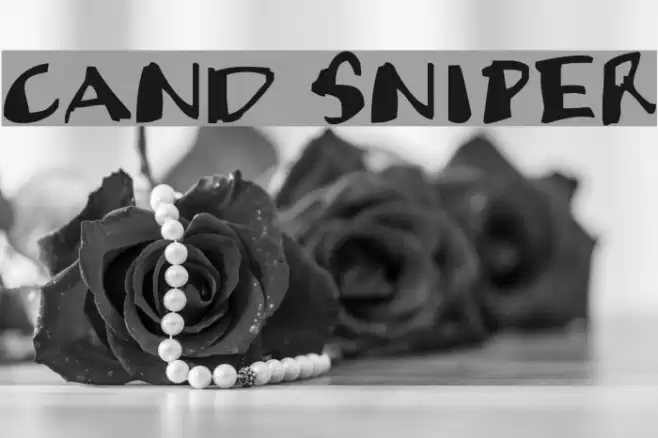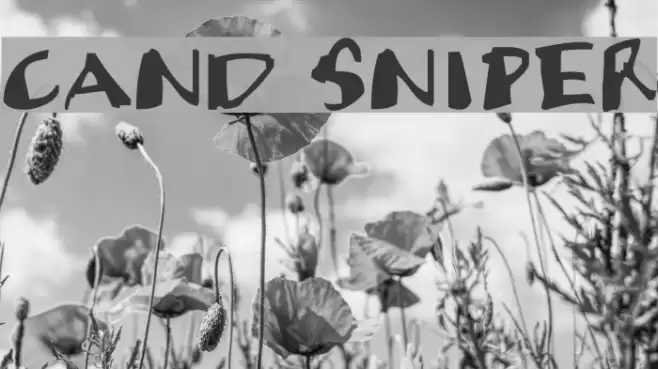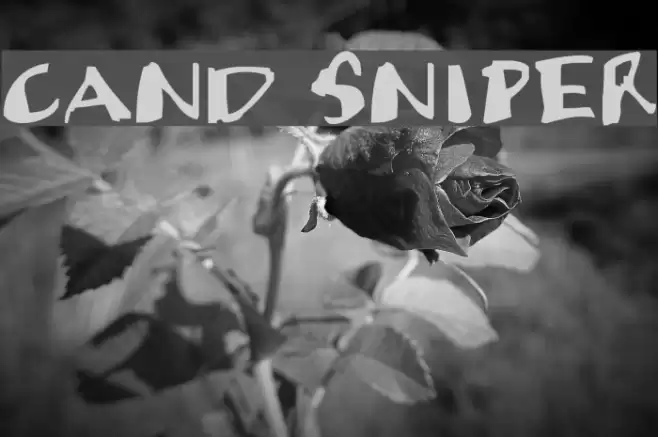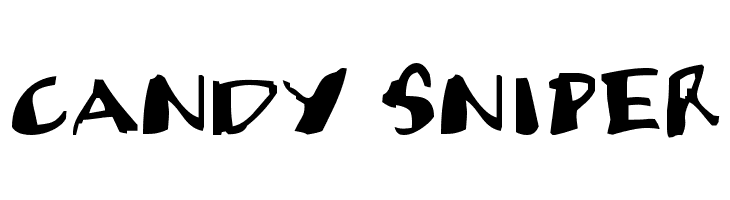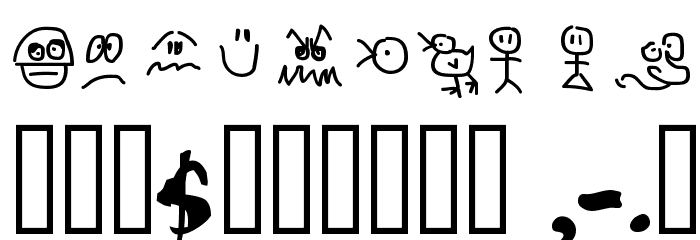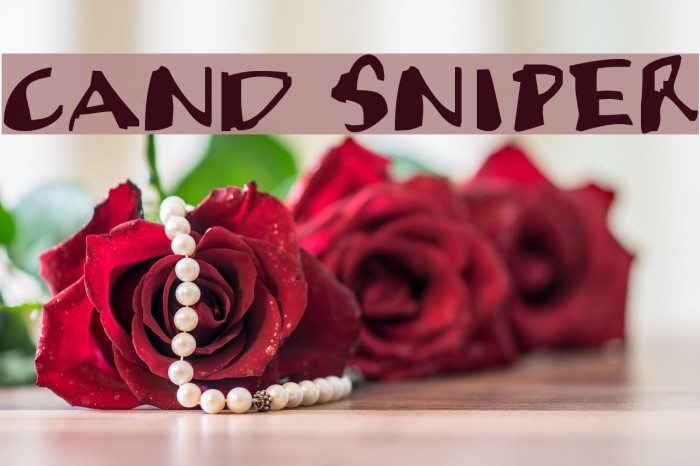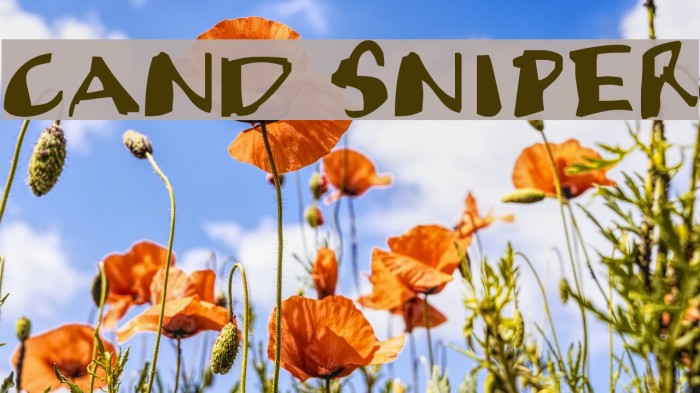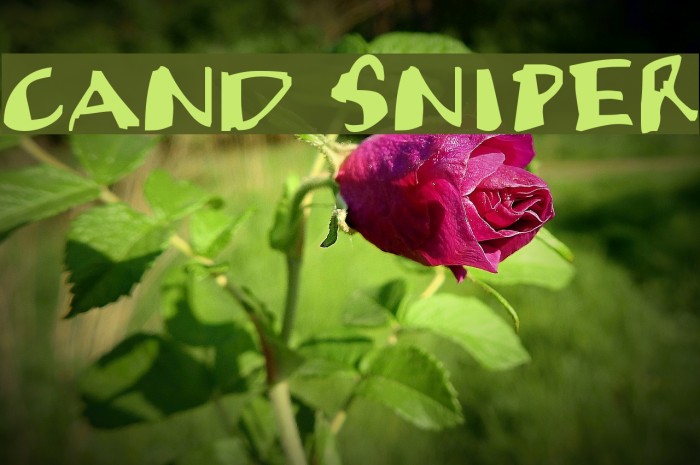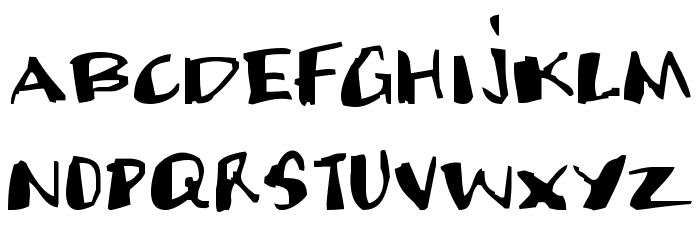
Candy Sniper Font
Candy Sniper Description
This font features a playful and dynamic style, characterized by its irregular and bold strokes. The uppercase letters exhibit a sense of movement and energy, with varying angles and thicknesses that create a lively appearance. The lowercase letters maintain this energetic feel, with a slightly more compact form. The numbers and special characters are equally expressive, adding to the font's whimsical nature. This font's unique design makes it stand out, offering a sense of fun and creativity.
A playful, dynamic font with bold, irregular strokes and a whimsical style from Quirky fonts.
- Proposed Projects: Ideal for children's books, comic strips, playful branding, and creative posters.
- Overall Style: Playful, Whimsical